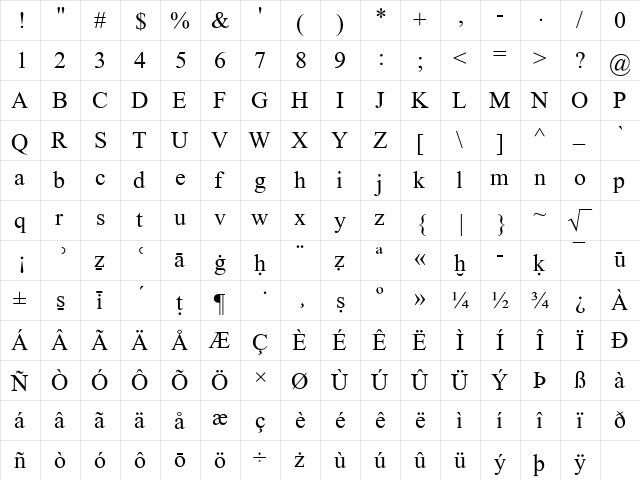
TIMESCVR Regular
Design Context for TIMESCVR Typeface
TIMESCVR offers clean, dependable letterforms without strong stylistic allegiance, making it a practical choice for designers who need flexibility.